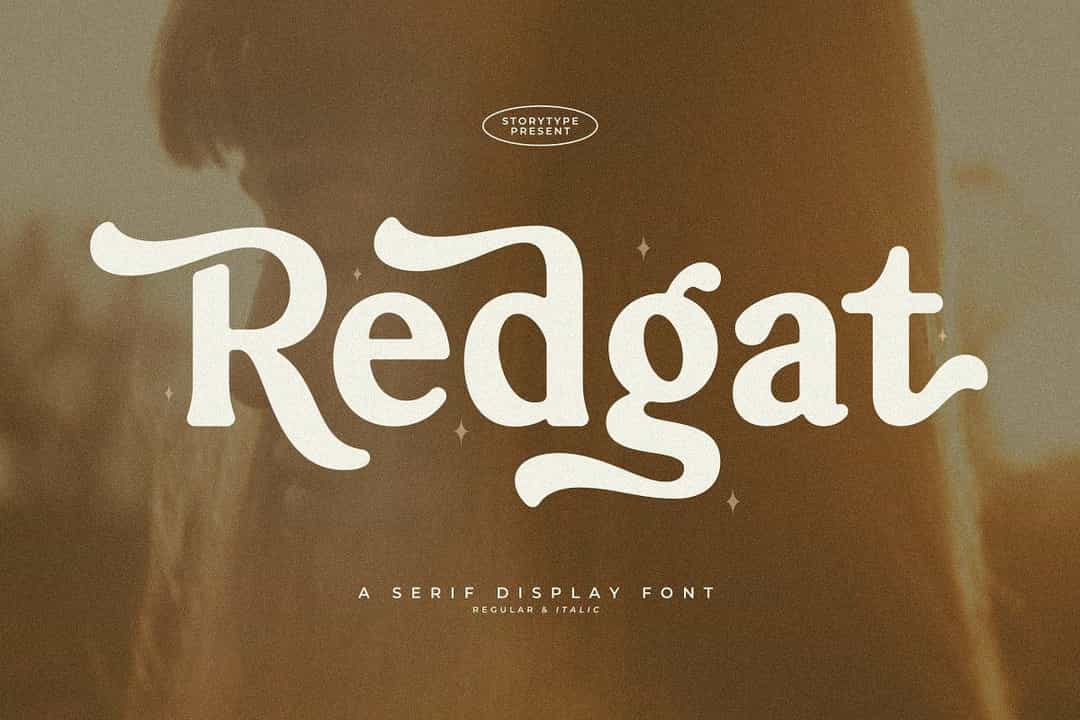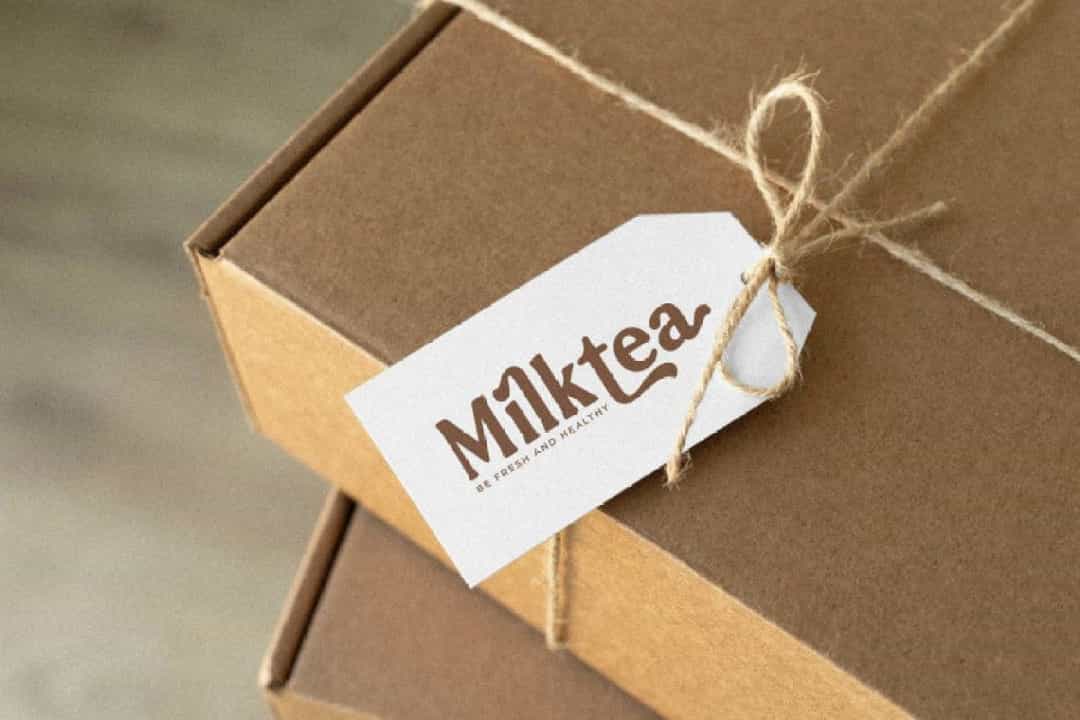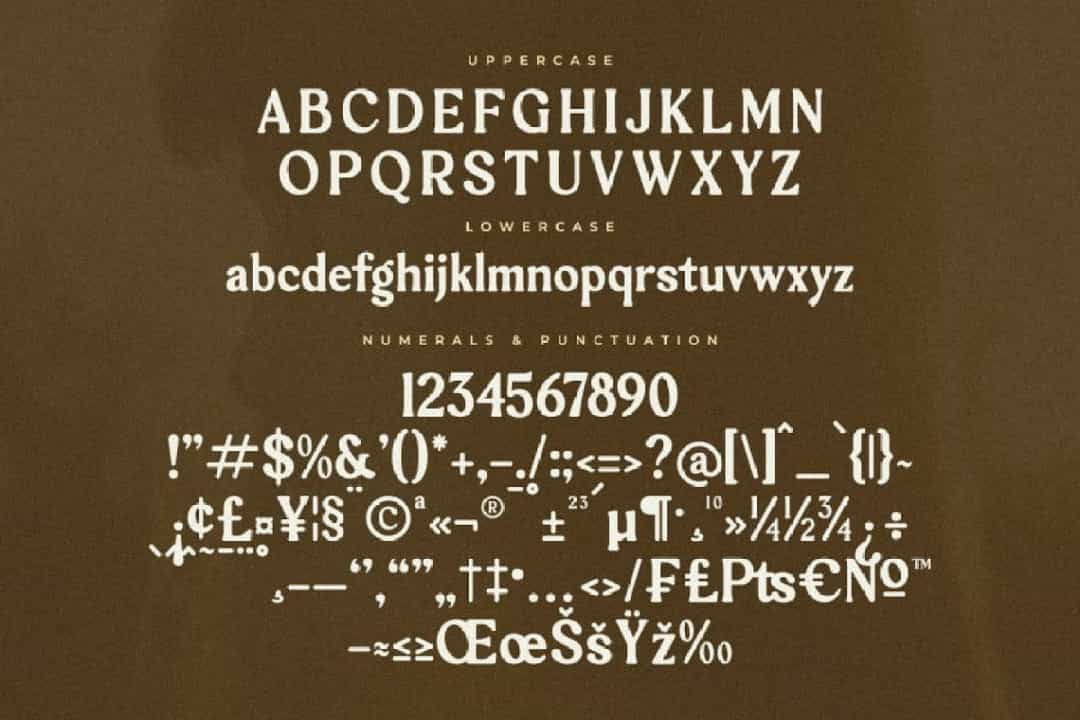
Redgat can be described as an e-serif typeface with vintage modern characteristics. Using this beautiful font you can easily create classy and elegant logos, movie/book title designs, fashion brands, magazine covers, clothing lines, lettering quotes etc. Redgat makes an elegant impression in logo design as well as fashion brands, magazine covers, clothing lines etc.